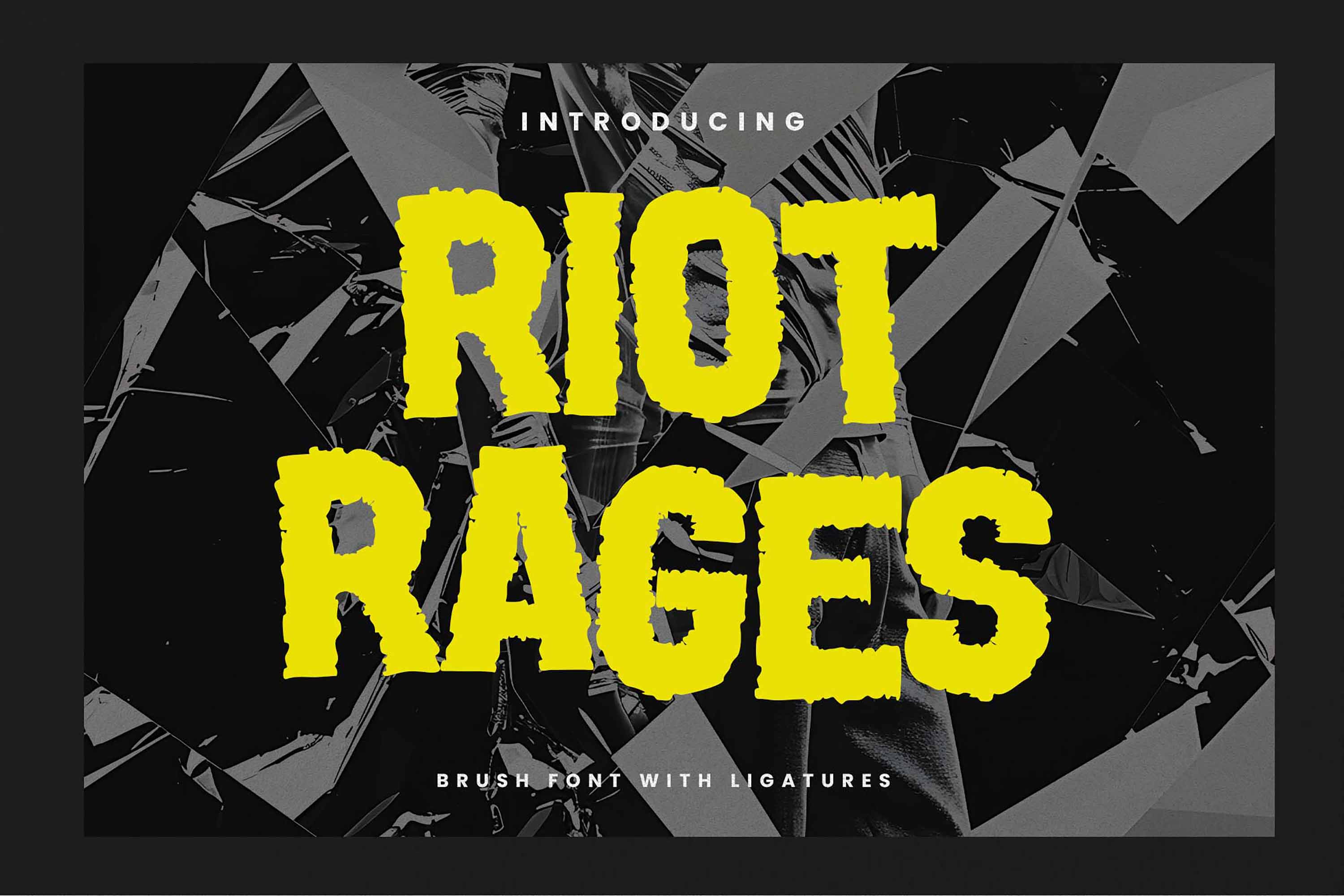
Riot Rages – Rough Sans Display Font
Introducing: Riot Rages – Rough Sans Display Font, a modern, rough font crafted with a casual and quick touch. Perfect for adding a unique, textured, and strong characteristic to your designs.
Riot Rages is perfect for:
Sports labels
Quotes
Posters
DIY projects
Branding
Packaging
Greeting cards
Websites
Photos
Photography overlays
Signs
Scrapbooking
Tags
And much more!